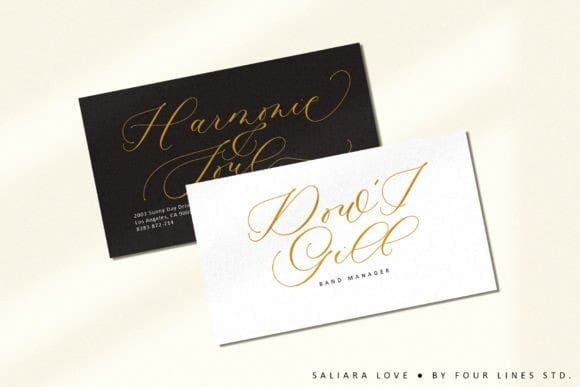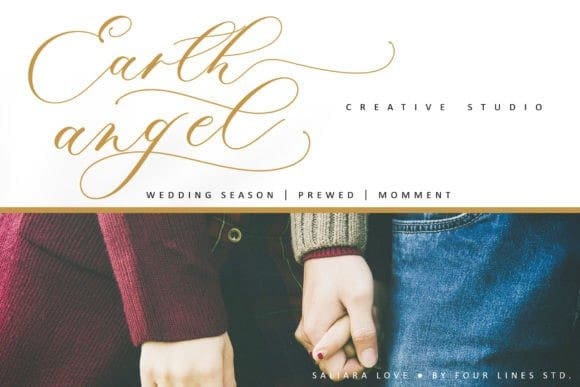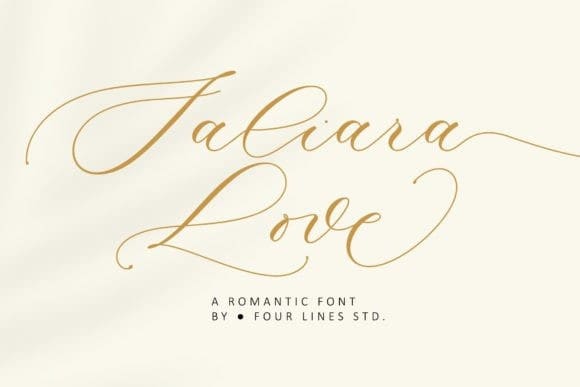
Saliara Love Font
Saliara Love Font is a sweet, whimsical, flowing, and romantic script font. Featuring characters that dance along the baseline, this font will add a luxury spark to any design project that you wish to create!
Saliara Love font is perfect for wall displays, wedding invitations, social media posts, greeting cards, invitations, stationery, and any project that requires a modern calligraphy taste.